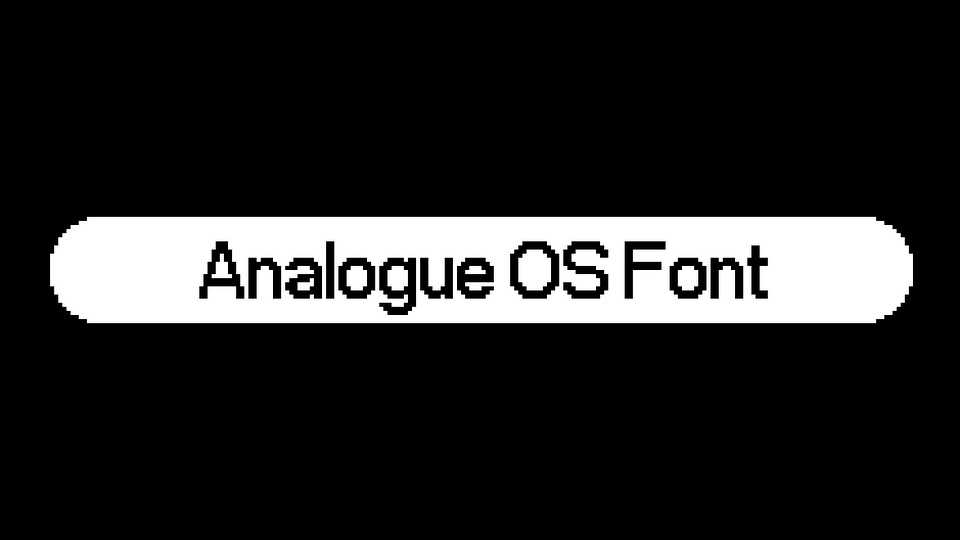
Download Analogue OS font, a pixel typeface, a recreation of the font used in Analogue OS on Pocket. The font is perfect for display use, web, UI, games and pixel art.
Designer: AbFarid